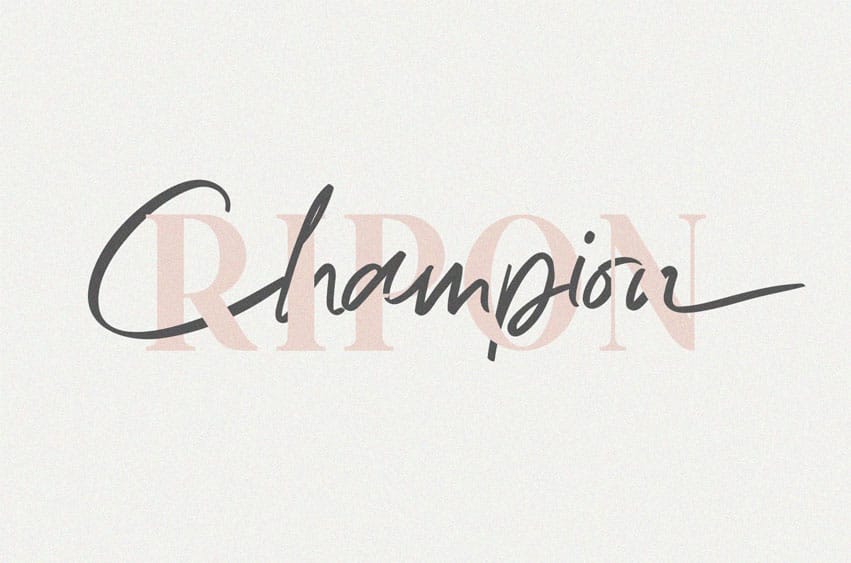
Ripon Duo Font
Ripon Duo Font Two combinations of serif and script. Serif is known as a classic style so handwriting is perfect when combined. So, we made two different fonts, but one name.
This fonts is perfect for wedding invites, logo design, book covers, stationery, marketing, magazines, inspirational quotes and much more.
Ripon Duo Font Preview